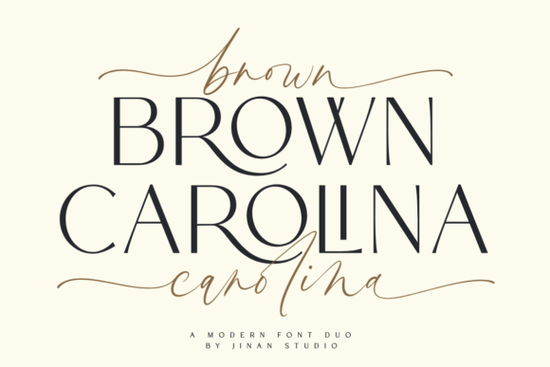
If you’ve been searching for a font that feels both modern and personal, the Brown Carolina Duo Font might be exactly what your next project needs. It’s not just another pretty typeface it’s two fonts in one: a clean sans-serif and a flowing script. Whether you’re designing wedding invites, branding materials, or social media graphics, this duo gives you room to mix structure with creativity without losing cohesion.
The script version is especially flexible. It includes alternate characters and ligatures that help your text feel handcrafted, not robotic. You can tweak letters to avoid repetition or add flair where needed perfect for names, quotes, or headlines that need to stand out. The sans-serif companion keeps things grounded, making it ideal for body text, captions, or any detail that needs clarity.
What kinds of projects work best with Brown Carolina?
This font shines when used in layered designs. Think:
- Wedding stationery Use the script for names and dates, and the sans for RSVP details or schedules.
- Small business branding Pair them on packaging, labels, or storefront signs to balance personality with professionalism.
- Print-on-demand products Mugs, tote bags, or journals with short phrases look more custom when the script adds a human touch.
- Social media templates Quotes or announcements gain visual interest when the script leads and the sans supports.
If you like how this handwritten bundle offers variety, you’ll appreciate how Brown Carolina gives you two distinct but complementary styles in one download. No need to hunt for matching fonts they’re built to work together.
How easy is it to customize the script version?
Very. Most design software (like Adobe Illustrator, Canva Pro, or Affinity Designer) lets you access OpenType features. That means you can swap in alternates or enable ligatures with a click. Even if you’re new to typography, you don’t need to be an expert to make the script look intentional and polished.
For example, try typing “&” you’ll likely get a swirly, elegant ampersand instead of a plain one. Or type “tt” the two t’s might connect into a single smooth stroke. These little details add up to a design that feels thoughtfully made, not templated.
It plays well with other script fonts too. If you’ve used Palm Bay Social for beachy vibes or Hello for casual greetings, Brown Carolina slots right in as a more refined option for formal or mixed-tone projects.
One thing to note: while the font is versatile, it’s not meant for ultra-small sizes. The script’s delicate strokes can blur or disappear below 10pt, so reserve it for headlines, logos, or display text. Use the sans-serif for anything tiny addresses, disclaimers, footnotes.
How does it compare to other duo fonts?
Some duos feel mismatched like one font is an afterthought. Brown Carolina avoids that. The weights, x-heights, and spacing are designed to align visually. You won’t need to resize or reposition constantly when switching between styles.
Compare it to Shina Qatline, which leans decorative, or Beach Waves Duo, which has a relaxed coastal rhythm. Brown Carolina sits in the middle stylish but not overwhelming, structured but not stiff. It’s the kind of font you’ll reach for again because it doesn’t demand heavy editing to look good.
Quick tips before you start using it
- Less is more. Let the script do the talking don’t pair it with other ornate fonts.
- Use tracking, not kerning. Adjust letter spacing globally for cleaner results than manual tweaks.
- Contrast matters. Dark script on light backgrounds works best. Avoid busy patterns behind it.
- Test print it. Some ligatures may render differently on screen vs. paper always do a proof.
Whether you’re crafting invitations, building a brand, or just playing with lettering for fun, Brown Carolina gives you room to experiment without chaos. It’s practical enough for pros, approachable enough for beginners, and distinctive enough to make your work feel uniquely yours.